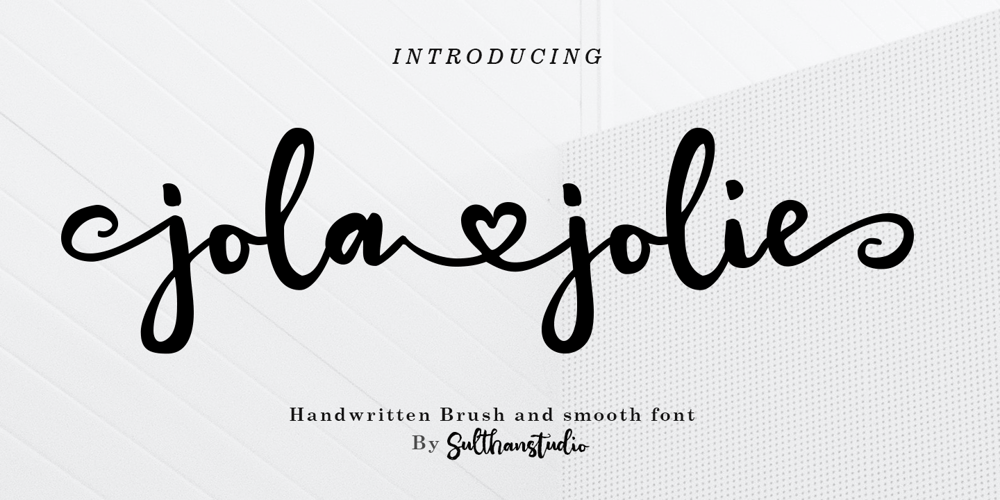
Jola jolie smooth Font Family was designed by Nasrullah and published by Sulthan Studio. Jola jolie smooth contains 2 styles and family package options. IntroducingJola jolie brush and smooth fonthandwritten brush font that is very natural according to what is depicted in ink looks very beautiful and charming and also comes with the same font neatly smooth and not many smudges you just have to choose according to your needs and also your taste there is also a heart in the middle to add your name or say.It’s perfect for any type of work you’re working various purposes such as logos, wedding invitations, headings, t-shirts, letterheads, signage, labels, news, posters, badges etc.